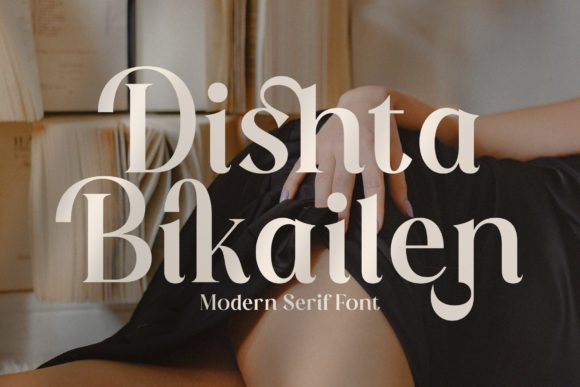
The Perfect Blend of Elegance and Modernity
Have you ever stumbled upon a beautiful font while browsing through design inspiration boards, only to find yourself stuck in a creative loop, trying to recreate the magic? That’s exactly what happened to me when I discovered the stunning Dishta Bikailen Font. This gorgeous serif typeface has been captivating designers with its unique blend of classic and modern elements.
Designed to make a statement, the Dishta Bikailen Font is perfect for luxury logo designs, book titles, fashion brands, and magazine covers. Its versatility and sophistication make it a valuable addition to any designer’s toolkit, allowing them to create stunning visual identities that exude elegance and refinement.
With its timeless appeal and modern twist, the Dishta Bikailen Font is sure to elevate your designs to new heights. Whether you’re a seasoned designer or just starting out, this incredible font is an absolute must-have for anyone looking to add a touch of sophistication to their work.
Dishta Bikailen Font Key Features
- Character Set: The font features a comprehensive character set, including Latin, Cyrillic, and Devanagari scripts, making it suitable for multilingual typography.
- Unique Characteristics: Dishta Bikailen Font features a unique blend of traditional and modern design elements, with intricate details and ornate flourishes that set it apart from other fonts.
Dishta Bikailen Font Review
As a designer, I’m always on the lookout for unique and creative fonts to elevate my designs. Dishta Bikailen Font caught my attention with its intricate and whimsical design. Here’s my honest review.
- Uniqueness: Dishta Bikailen Font stands out from the crowd with its one-of-a-kind design, making it perfect for designers who want to add a touch of personality to their work.
- Legibility: Despite its complex design, the font is surprisingly legible, making it suitable for a wide range of applications.
- Expressiveness: The font’s expressive nature allows designers to convey a sense of emotion and creativity, which is perfect for artistic and design-heavy projects.
- Complexity: While the font’s complexity is part of its charm, it can also be a limitation for designers who prefer simpler, more straightforward fonts.
- Readability at small sizes: The font’s intricate design can make it difficult to read at small sizes, which may limit its use in certain applications.
Overall, I think Dishta Bikailen Font is a unique and creative addition to any designer’s toolkit. While it may have some limitations, its expressiveness and uniqueness make it worth considering for the right projects.
Practical Application Guide for Dishta Bikailen Font
Tips for Getting the Most Out of Dishta Bikailen Font
For best results, use Dishta Bikailen Font in bold or italic styles to add emphasis to your text.
Experiment with different font sizes and combinations to create visually appealing designs.
Use Dishta Bikailen Font in conjunction with other creative fonts to add depth and interest to your designs.
Dishta Bikailen Font is ideal for:
– Creative projects that require a unique and eye-catching font
– Branding and marketing materials that need to stand out
The recommended font size range for Dishta Bikailen Font is between 10pt and 24pt. This range allows for optimal legibility and readability of the font. However, you can experiment with different font sizes to achieve the desired visual effect.